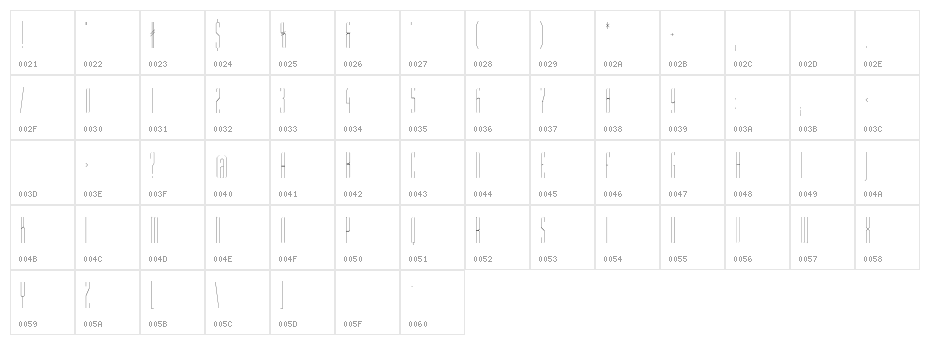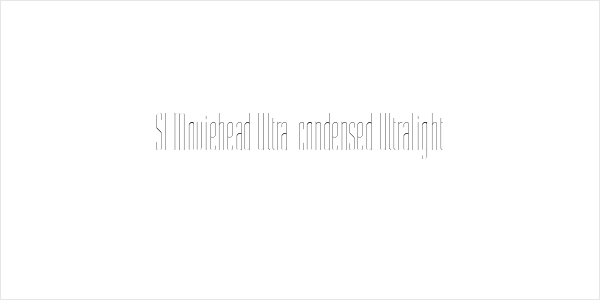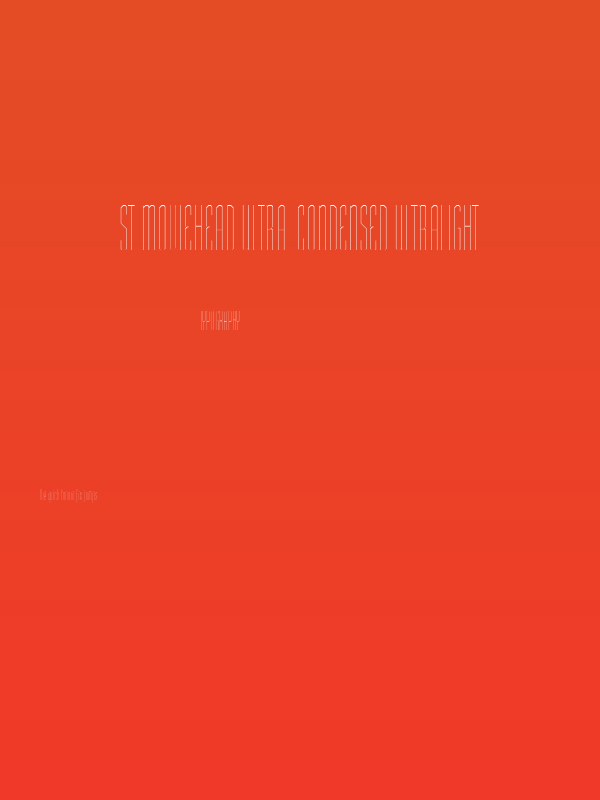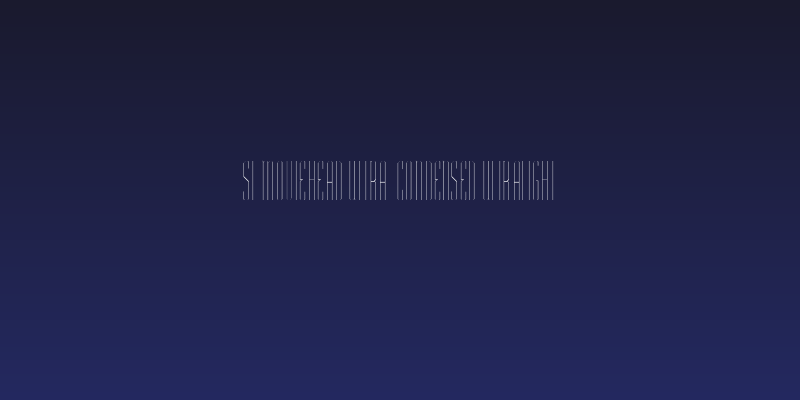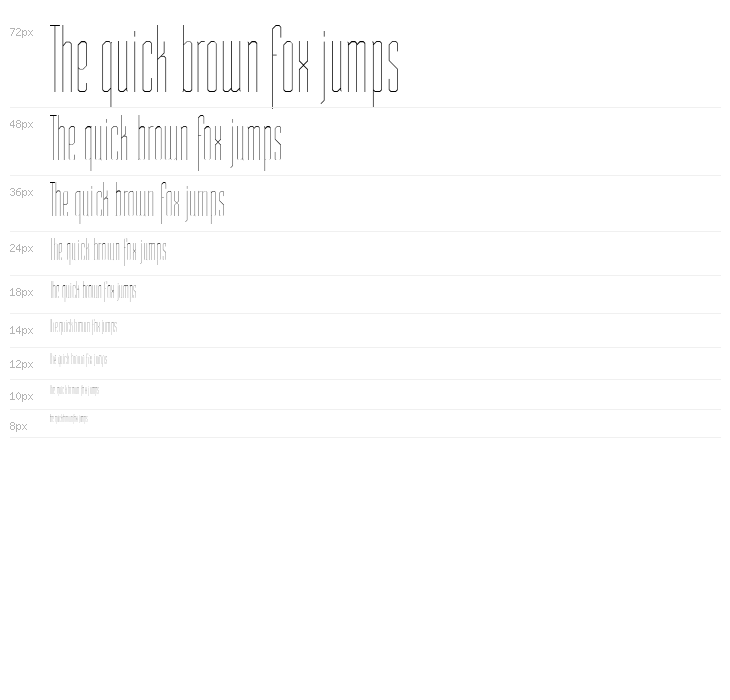
ST Moviehead Ultra-condensed UltraLight Font
This font is characterized by its ultra-condensed and ultra-light design, featuring extremely thin and elongated letterforms. The verticality of the characters is pronounced, giving it a sleek and modern appearance. The minimal stroke width contributes to a delicate and airy feel, making it suitable for large display settings where its unique style can be appreciated. The uppercase and lowercase letters maintain a consistent height, enhancing its uniformity. Numbers and special characters follow the same design principles, ensuring a cohesive look across all glyphs. This font's distinctiveness lies in its ability to convey elegance and sophistication through its minimalist approach.
Proposed ProjectsIdeal for fashion magazines, luxury branding, high-end product packaging, and modern art posters.